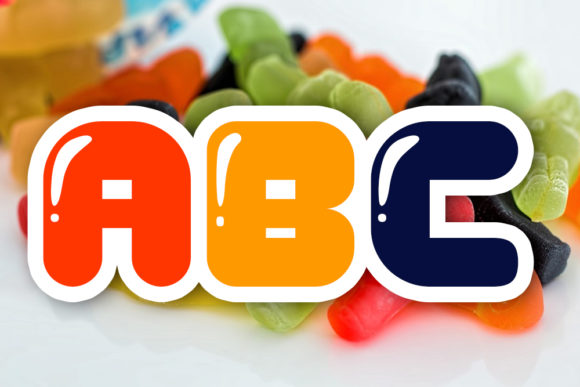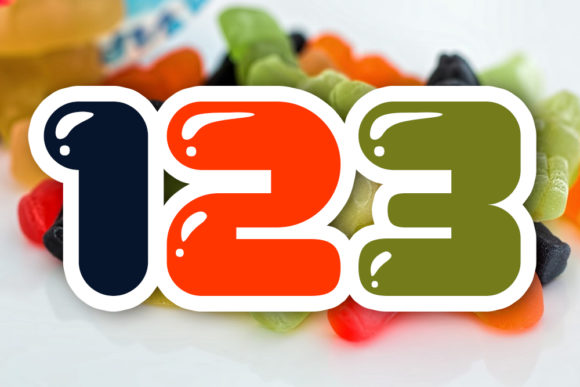
The Gummy Font: A Bubbly 3D Style to Elevate Your Designs
Are you tired of using the same old fonts in your designs? Look no further than the Gummy font, a fun and playful 3D font that’s sure to make your banners, headlines, and posters stand out. In this article, we’ll dive into the world of Gummy font and explore its features, benefits, and uses.
What is Gummy Font?
The Gummy font is a unique and eye-catching font that’s designed to resemble gummy bears or other soft, chewy candies. It’s a 3D font, which means it has a raised, dimensional appearance that adds depth and visual interest to any design. The font is made up of rounded, bubbly shapes that are reminiscent of gummy candies, hence its name.
Features of Gummy Font
So, what makes the Gummy font so special? Here are just a few of its key features:
- 3D appearance: The Gummy font has a raised, 3D appearance that adds depth and visual interest to any design.
- Bubbly shapes: The font is made up of rounded, bubbly shapes that are reminiscent of gummy candies.
- Playful feel: The Gummy font has a playful, fun feel that’s perfect for designs that need to appeal to a younger audience.
- Highly legible: Despite its 3D appearance, the Gummy font is highly legible, even at small sizes.
Benefits of Using Gummy Font
So, why should you use the Gummy font in your designs? Here are just a few benefits:
- Adds visual interest: The Gummy font adds a level of visual interest to any design, making it more likely to grab the viewer’s attention.
- Creates a playful feel: The Gummy font has a playful, fun feel that’s perfect for designs that need to appeal to a younger audience.
- Versatile: The Gummy font can be used in a wide range of designs, from banners and headlines to posters and social media graphics.
Uses for Gummy Font
So, what can you use the Gummy font for? Here are just a few ideas:
- Banners and headlines: The Gummy font is perfect for banners and headlines that need to grab the viewer’s attention.
- Posters and flyers: The Gummy font can be used to create eye-catching posters and flyers that will stand out in a crowd.
- Social media graphics: The Gummy font is a great choice for social media graphics, such as Facebook posts and Instagram stories.
- Children’s designs: The Gummy font is perfect for designs that need to appeal to children, such as children’s party invitations and kids’ clothing.
Tips for Using Gummy Font
Here are a few tips for using the Gummy font in your designs:
- Use it sparingly: While the Gummy font is fun and playful, it can be overwhelming if used too much. Use it sparingly to add visual interest to your design.
- Pair it with a simple font: Pair the Gummy font with a simple font to create contrast and add visual interest to your design.
- Experiment with colors: The Gummy font looks great in bright, bold colors. Experiment with different colors to find the one that works best for your design.
The Gummy font is a fun and playful 3D font that’s perfect for designers and crafters who want to add a level of visual interest to their designs. With its bubbly shapes and highly legible design, the Gummy font is sure to make your banners, headlines, and posters stand out. Whether you’re designing for children or adults, the Gummy font is a great choice. So why not give it a try and see how it can elevate your designs?